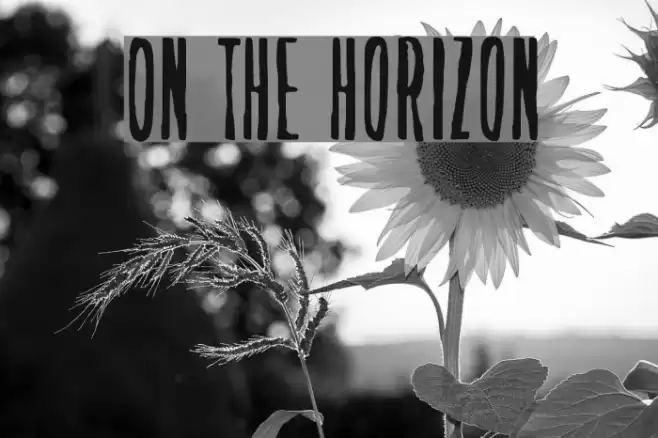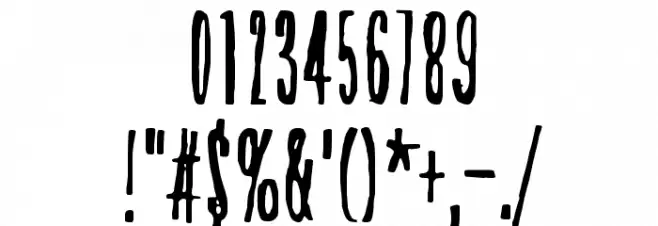
On the horizon Font
On the horizon Description
This font features a bold and elongated design, with each character exhibiting a slightly irregular and hand-drawn appearance. The uppercase letters are tall and narrow, giving a sense of height and drama. The lowercase letters maintain the same narrow style, ensuring consistency throughout the typeface. Numbers and special characters follow the same aesthetic, with a playful yet edgy look. The strokes are uneven, adding a rustic and organic feel, reminiscent of vintage posters or hand-painted signs. This font's unique style makes it stand out, ideal for projects that require a touch of individuality and creativity.
A bold, elongated font with a hand-drawn, vintage feel from Uncategorized fonts.
- Proposed Projects: Ideal for posters, branding, packaging, and any design needing a bold, artistic touch.
- Character Spacing: Tight
- Overall Style: Vintage